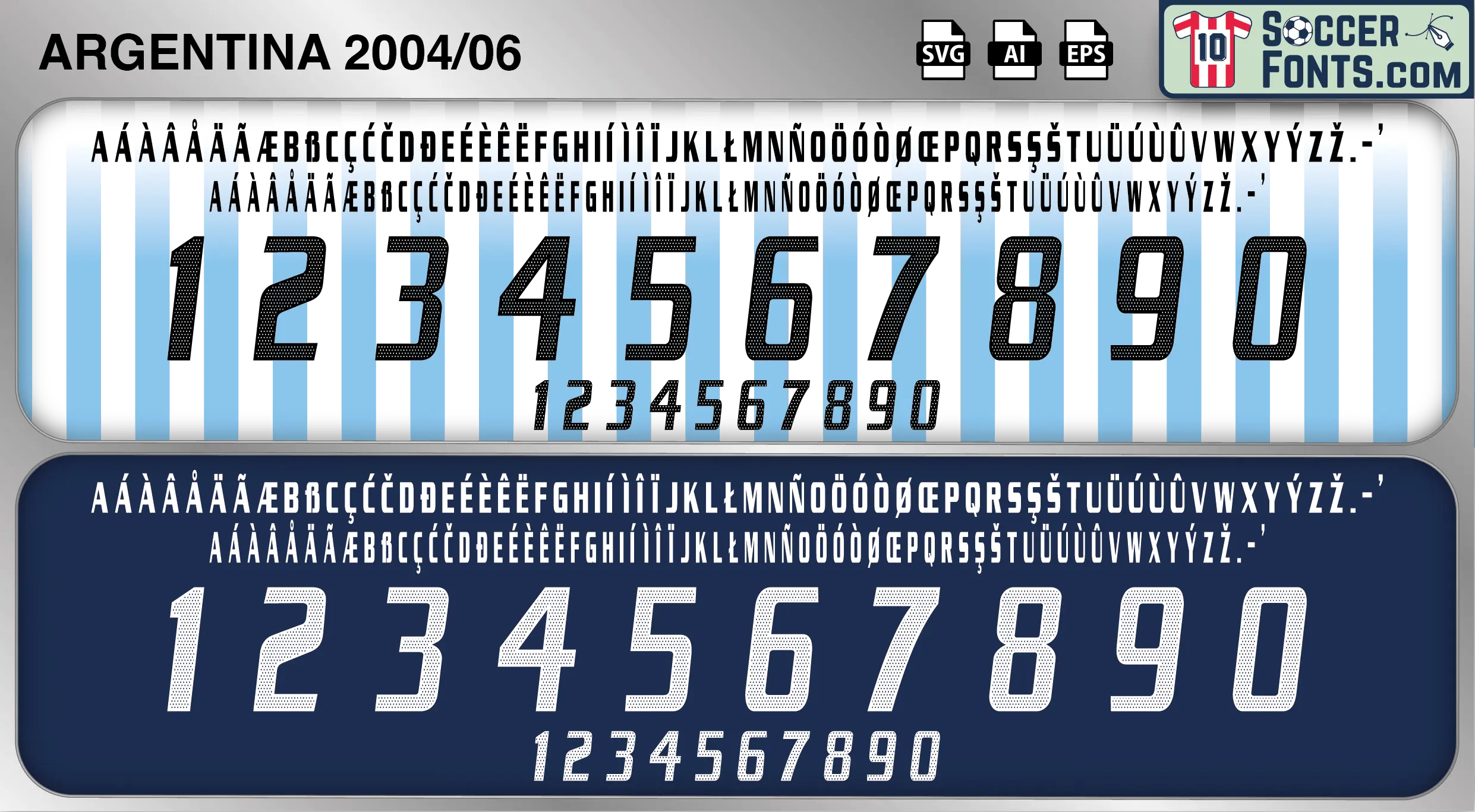
Argentina 2004-06 Font
The Argentina 2004-06 font is an editable soccer jersey lettering design in vector format inspired by the Argentina kit style used during the 2004-06 football seasons. This football font artwork is prepared for football shirt recreations, custom jersey projects, football kit mockups and sports graphic design workflows.
The 2004-06 era represented one of the most exciting periods for the Argentine national team in the modern game. Following an impressive run to the 2004 Copa América Final, Argentina continued developing a talented squad filled with established stars and emerging young players. Footballers such as Juan Román Riquelme, Carlos Tevez, Javier Mascherano, Hernán Crespo, Roberto Ayala and Pablo Aimar played important roles as Argentina prepared for the 2006 FIFA World Cup in Germany. During this period, Lionel Messi also made his senior international breakthrough, marking the beginning of one of the greatest careers in football history.
The Argentina 2004-06 font became associated with the rise of a remarkable generation and the anticipation surrounding the 2006 World Cup. Argentina shirts from this era remain highly collectible because of their connection with Messi’s first years in international football and one of the most technically gifted squads of the decade. The Argentina 2004-06 font reflects a period when Argentine football combined creativity, tactical intelligence and world-class talent, creating a strong identity that resonated with supporters around the globe. It remains one of the most memorable eras for fans who followed Argentina’s journey toward a new World Cup cycle.